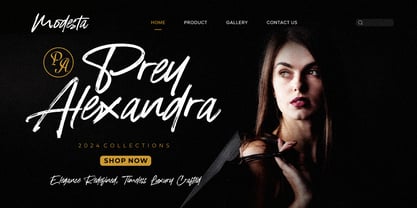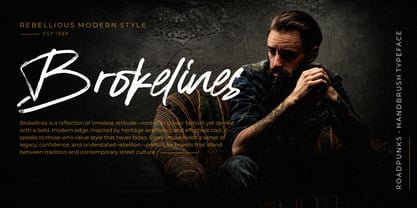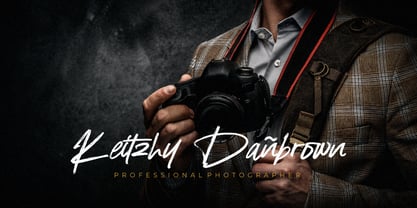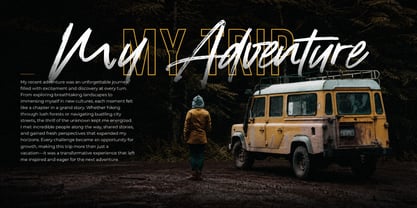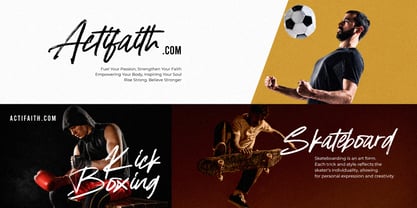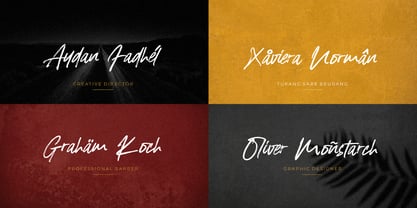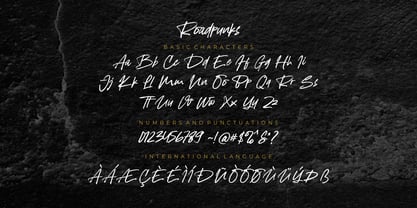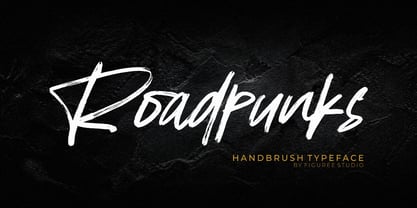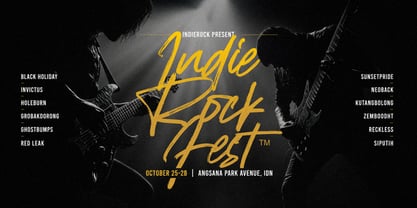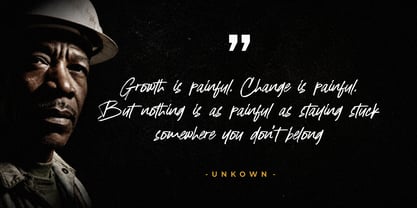
Roadpunks
The Roadpunks Font Family was designed by Icep Anwar Fadhil and published by Figuree Studio. Roadpunks contains 1 styles. More about this family
Roadpunks is a captivating handbrush typeface that seamlessly blends authenticity and style, making it the perfect choice for designs that require a personal touch. This font exudes a rebellious spirit, ideal for streetwear and lifestyle branding.
Authentic Handcrafted Feel: Each letter in Roadpunks is meticulously crafted to capture the essence of natural brush strokes, providing your designs with a genuine, artistic vibe. The font radiates creativity and individuality, perfect for those looking to stand out.
Versatile Application: Whether you’re creating posters, packaging, or social media graphics, Roadpunks adapts effortlessly to various projects. Its bold and dynamic style adds a unique flair to your designs, ensuring they leave a lasting impression.
Energetic and Engaging: Roadpunks’ energetic brush style draws the viewer in, making it an excellent choice for brands aiming to convey a sense of fun and spontaneity. This typeface is not just a font; it’s a statement. Roadpunks is your go-to hand brush typeface for designs that demand creativity and character. Elevate your projects with this unique font that captures the spirit of urban culture and artistic expression.